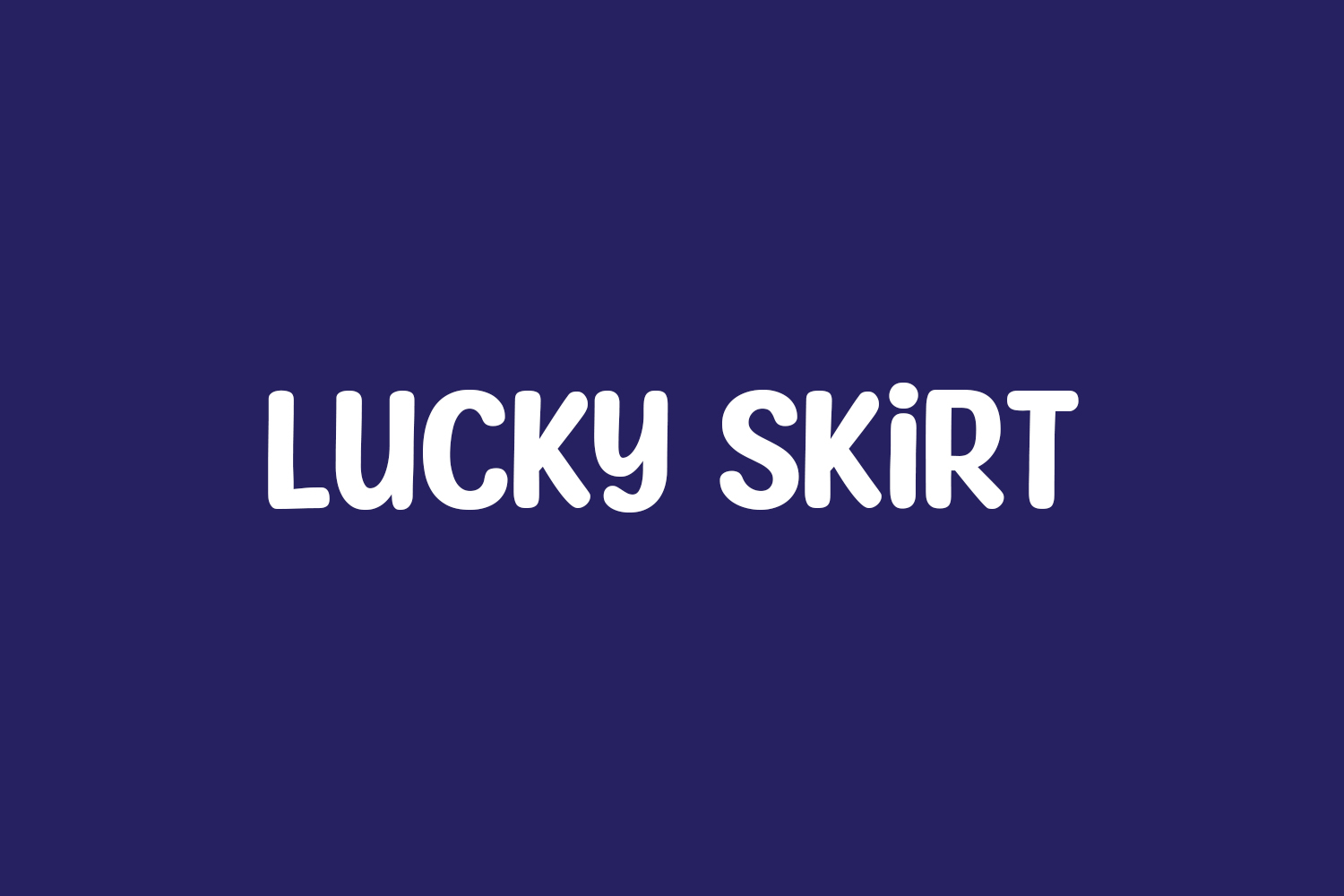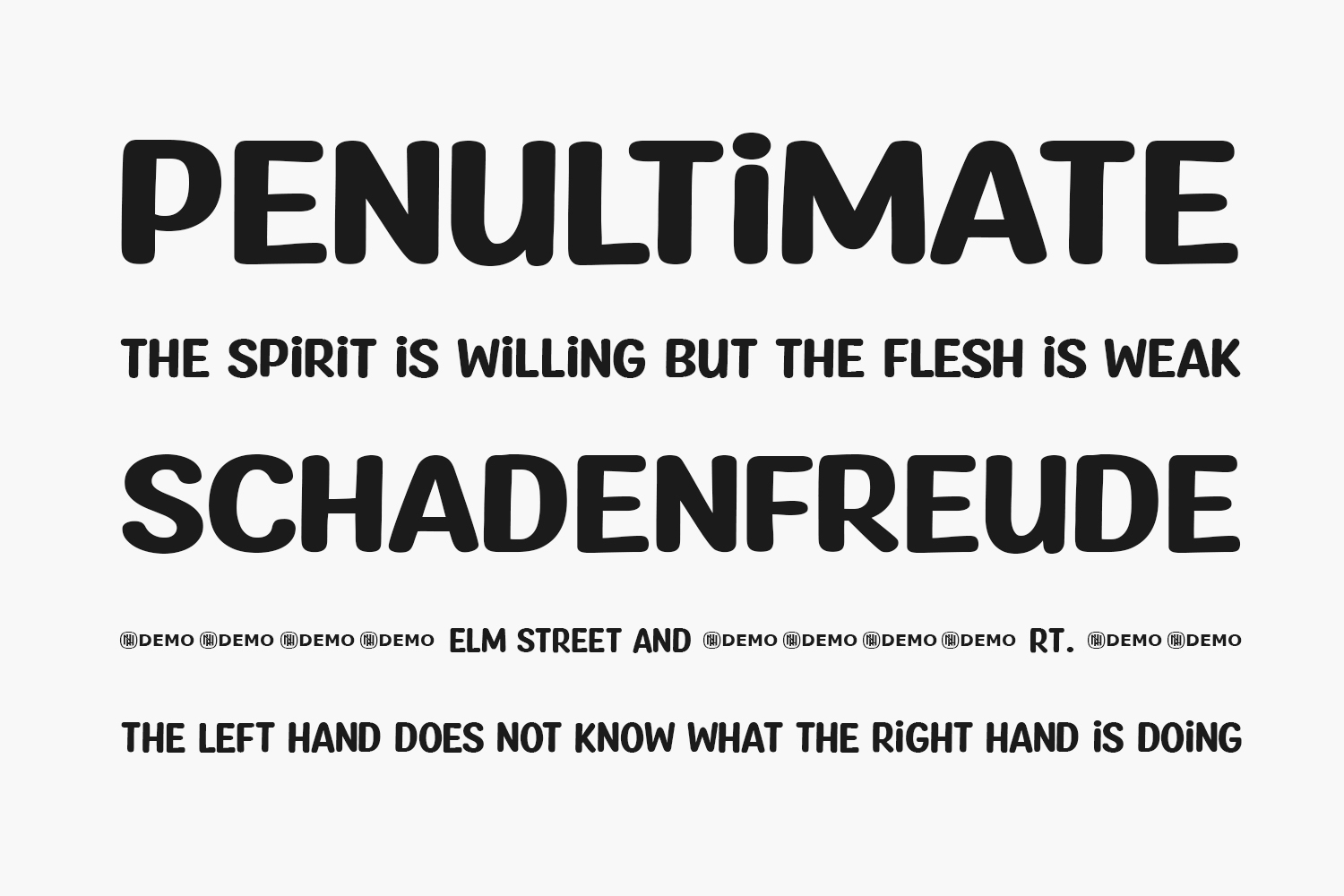
Lucky Skirt Please Free Font is a bold, fun, and playful display font. Its well-rounded and slightly chunky characters make this typeface an extremely versatile one! It can elevate the look of almost any of your beautiful creations. Lucky Skirt Please Free Font was designed by Niskala Huruf is a demo and free for personal use only. Please purchase the full version for commercial use.